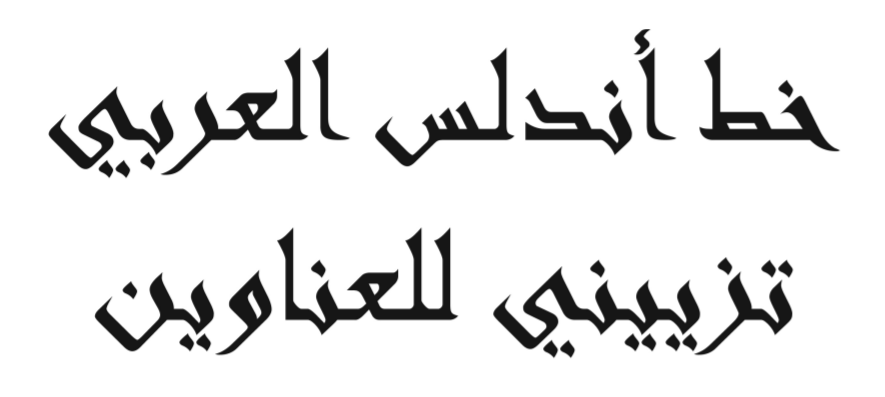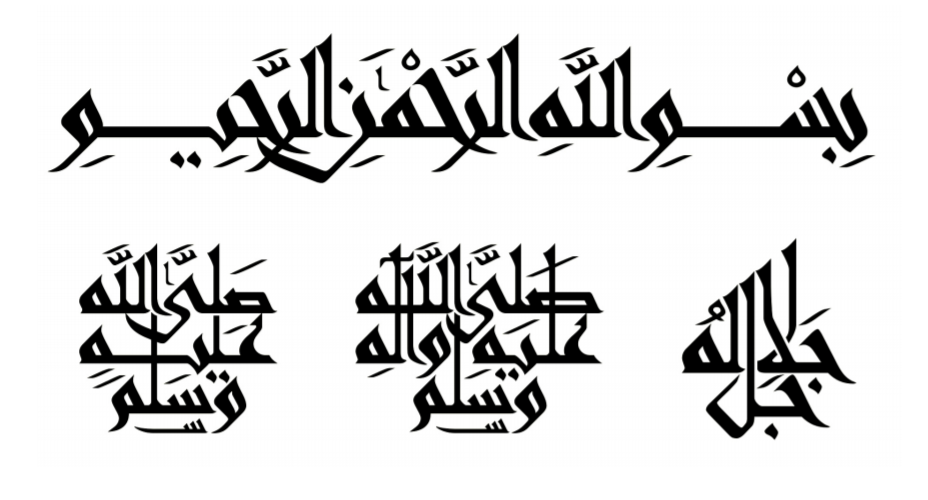
Andalus is an Arabic display font. Its design is a modern interpretation of Kairawani Kufic. This font is suitable for headlines, titles, posters, and any graphic design project where artistic flavor is desired.
- This font has shipped with Windows since Windows 3.1 (Arabic edition) as a TrueType font.
- Version 5.92 shipped with Windows 7, support for advance OpenType layout tables to improve marks positioning and other typographic enhancements were added.
- Version 5.99 shipped with Windows 8, we added traditional phrase-ligatures and support for end-of-Ayat mark to make Andalus more user-friendly to native Arabic language users.
- Figure 1: Andalus is an Arabic display font based on Kairawani Kufic calligraphy.
- Figure 2: Traditional phrase-ligatures added in version 5.99